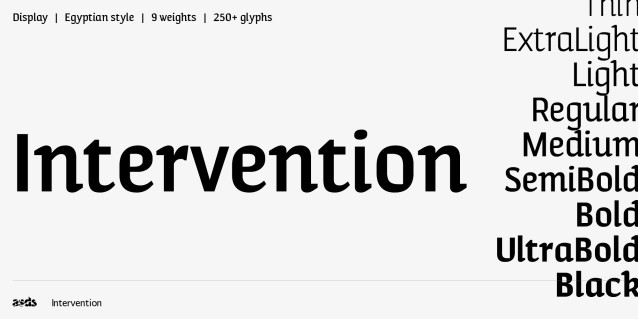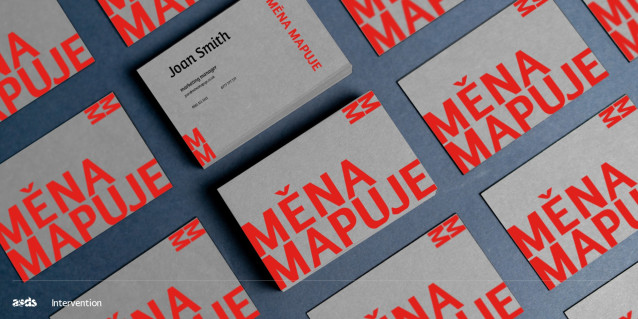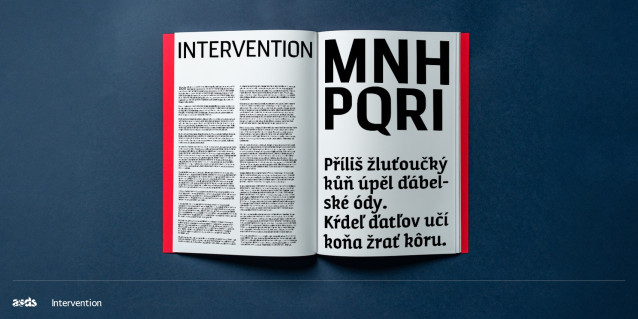
Intervention Font Family
Intervention Font Family is a striking display font inspired by early 1900s Constructivist design from Eastern Europe. Originally crafted for Taktiky Studio’s exhibition in Prague, titled Čekání Proměny, this font reflects the innovative spirit of the era. The exhibition featured a series of interventions along the new Metro D route, examining the impacts of this significant civil engineering project. Initially designed for Czech, Slovak, and English languages, Intervention has since been expanded and refined for commercial use, making it a versatile choice for branding, editorial design, and web applications. With its unique aesthetic and historical roots, this font stands out in any creative project.